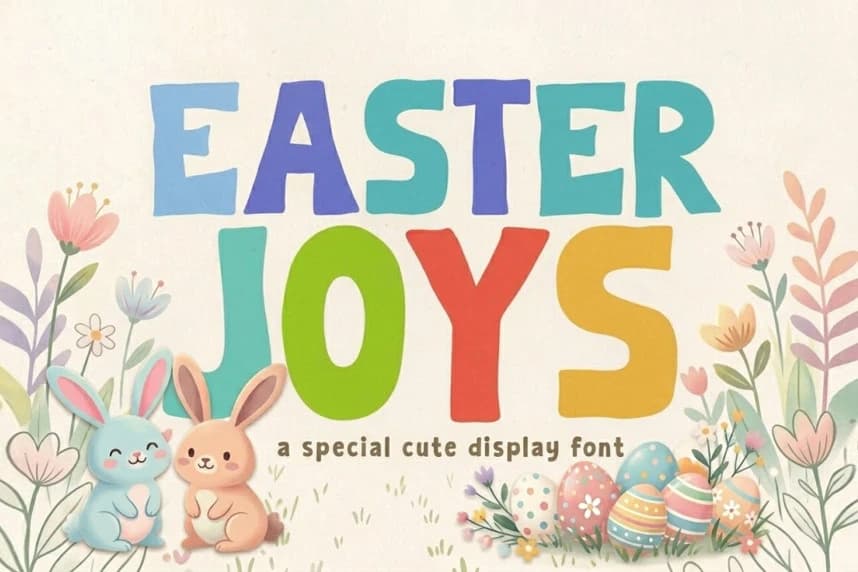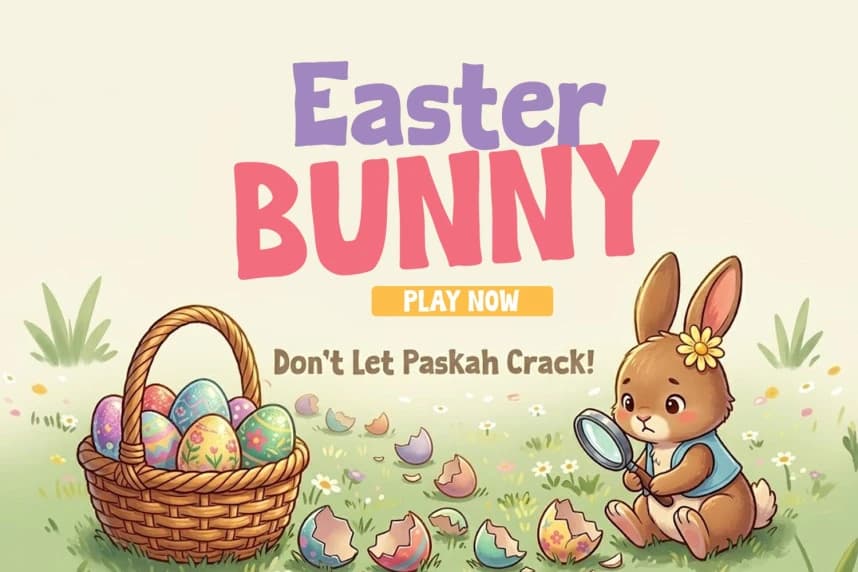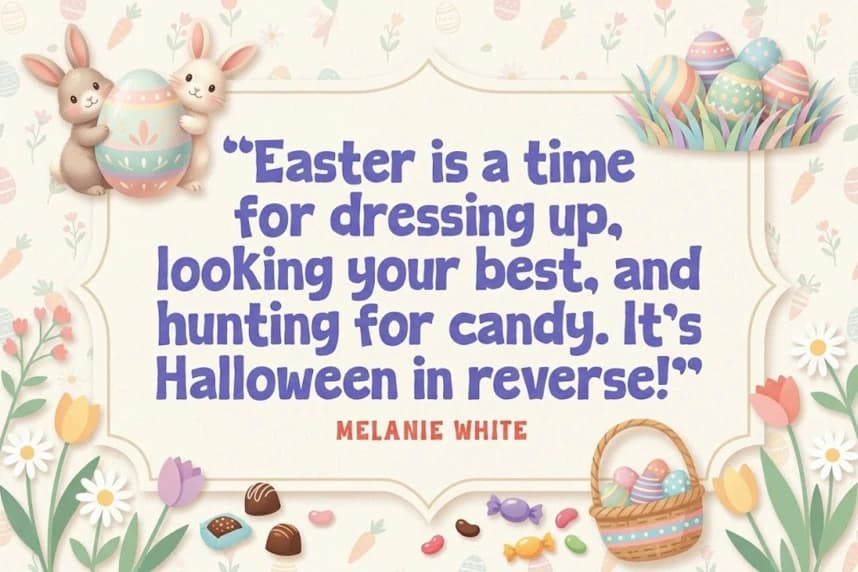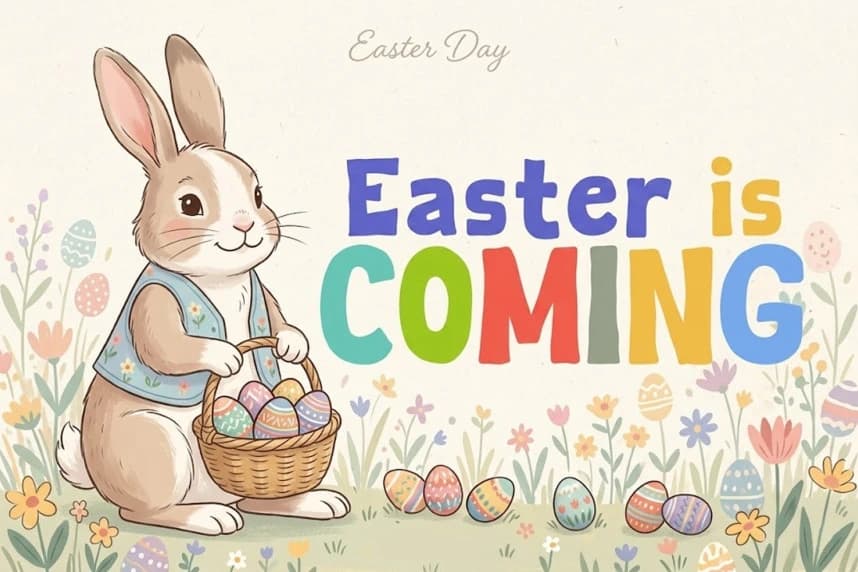
Easter Joys Font
Easter Joys Font is more than just a seasonal font; it’s a versatile powerhouse for any playful design! Featuring full multilingual support and a complete set of symbols, this font is ideal for children's books, quirky branding, and DIY craft projects.